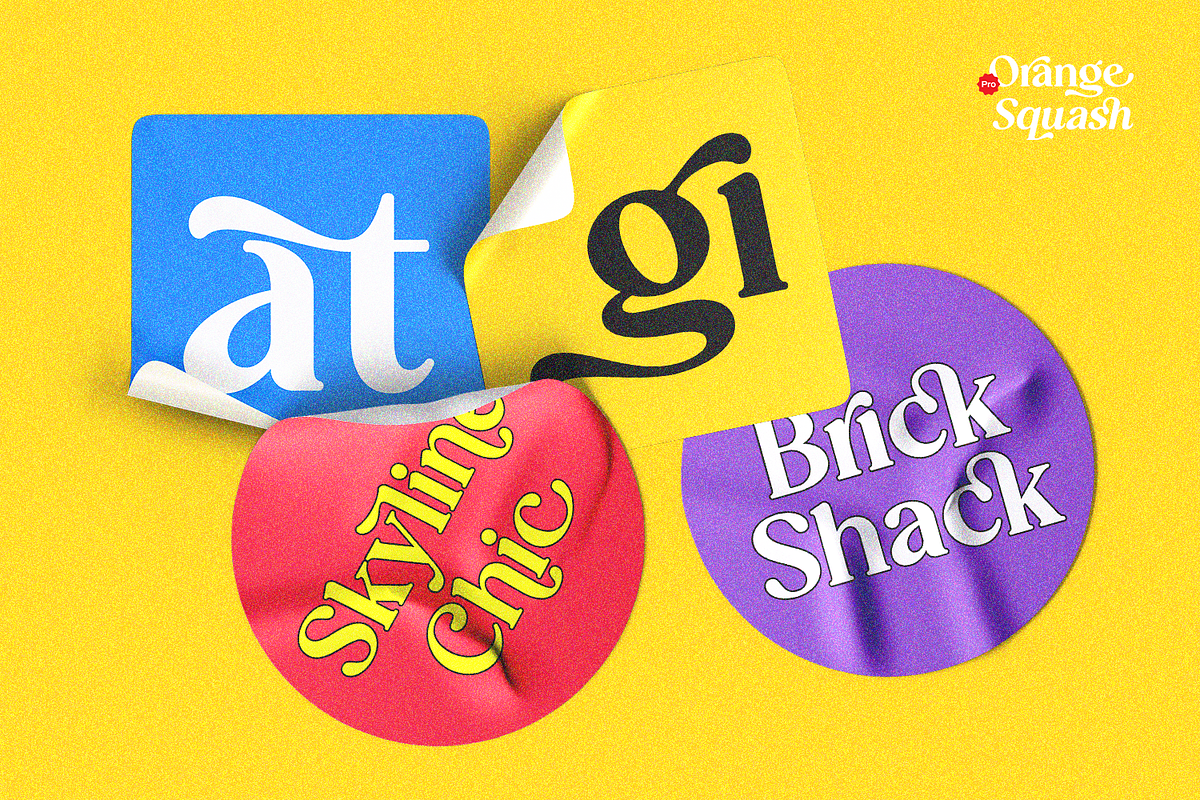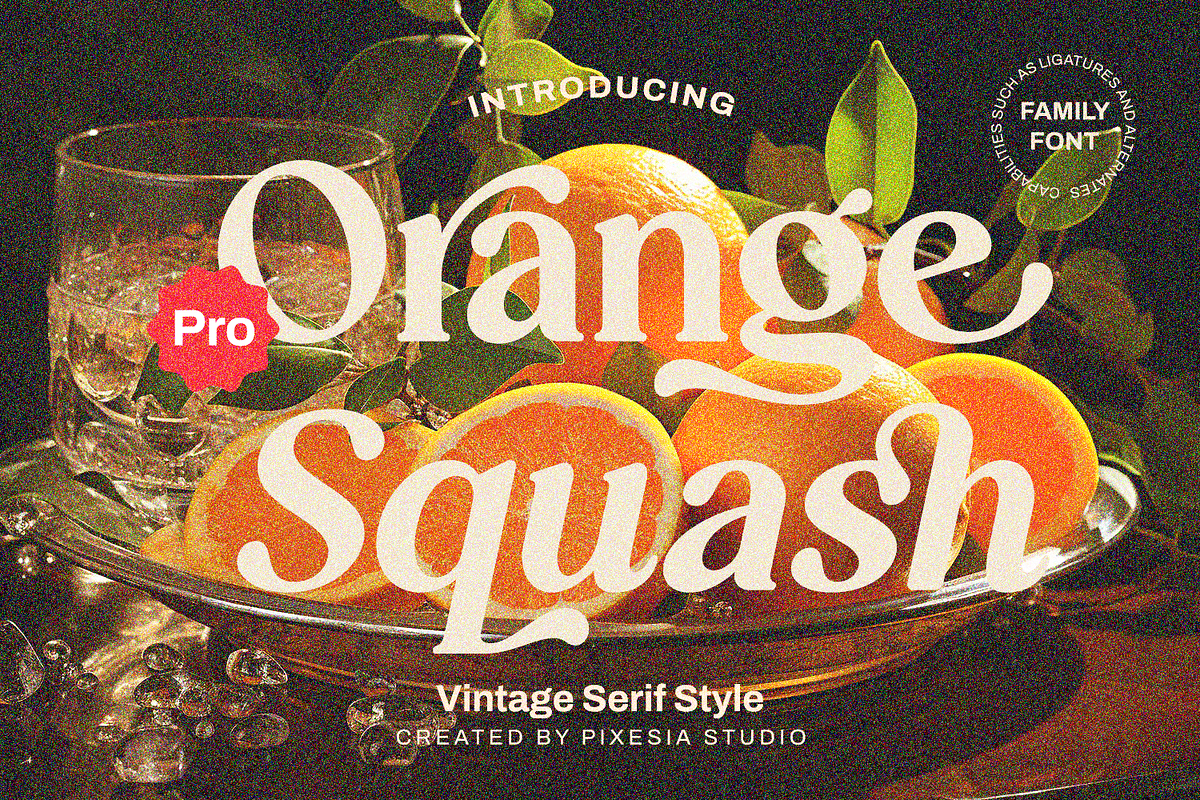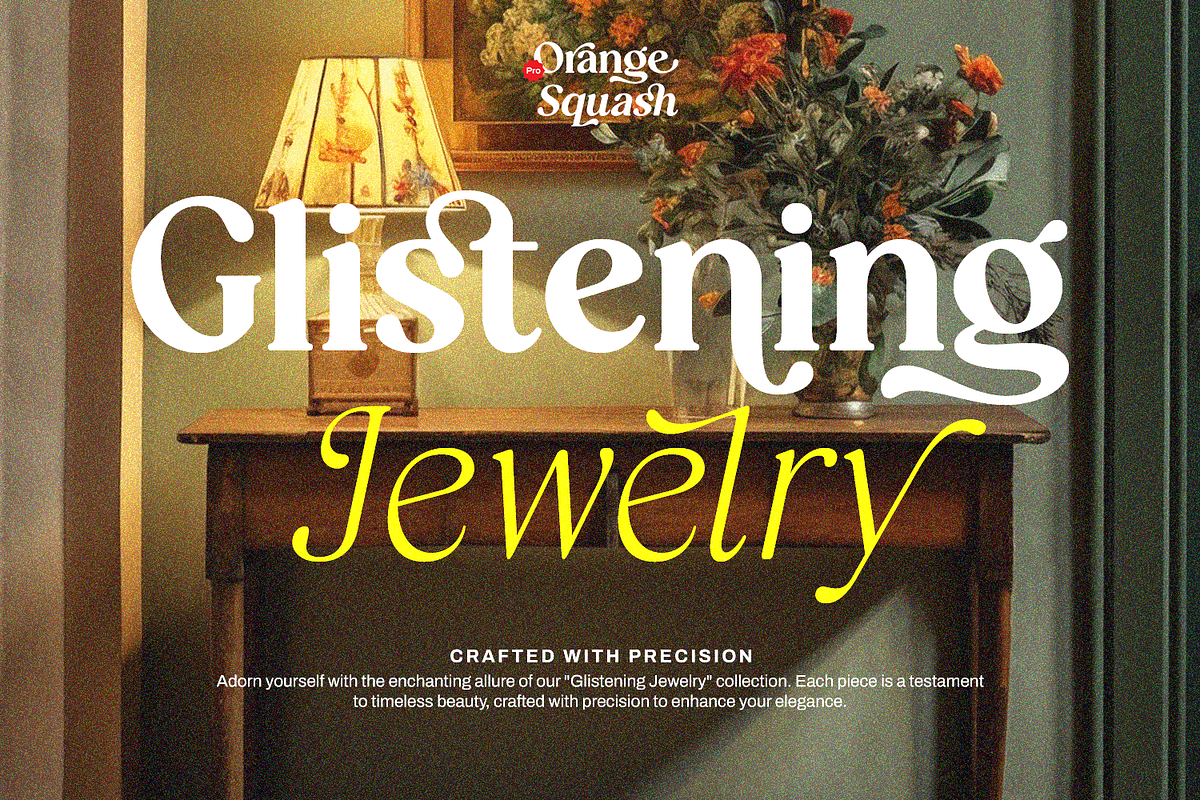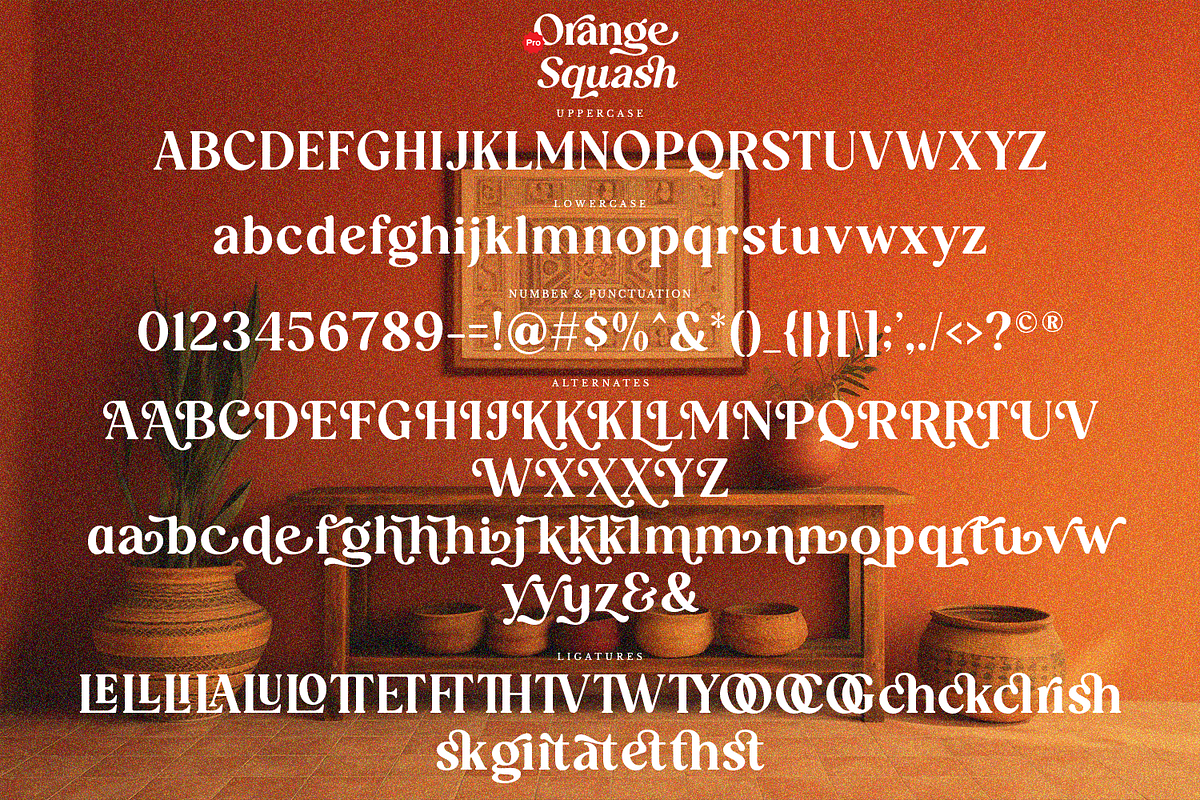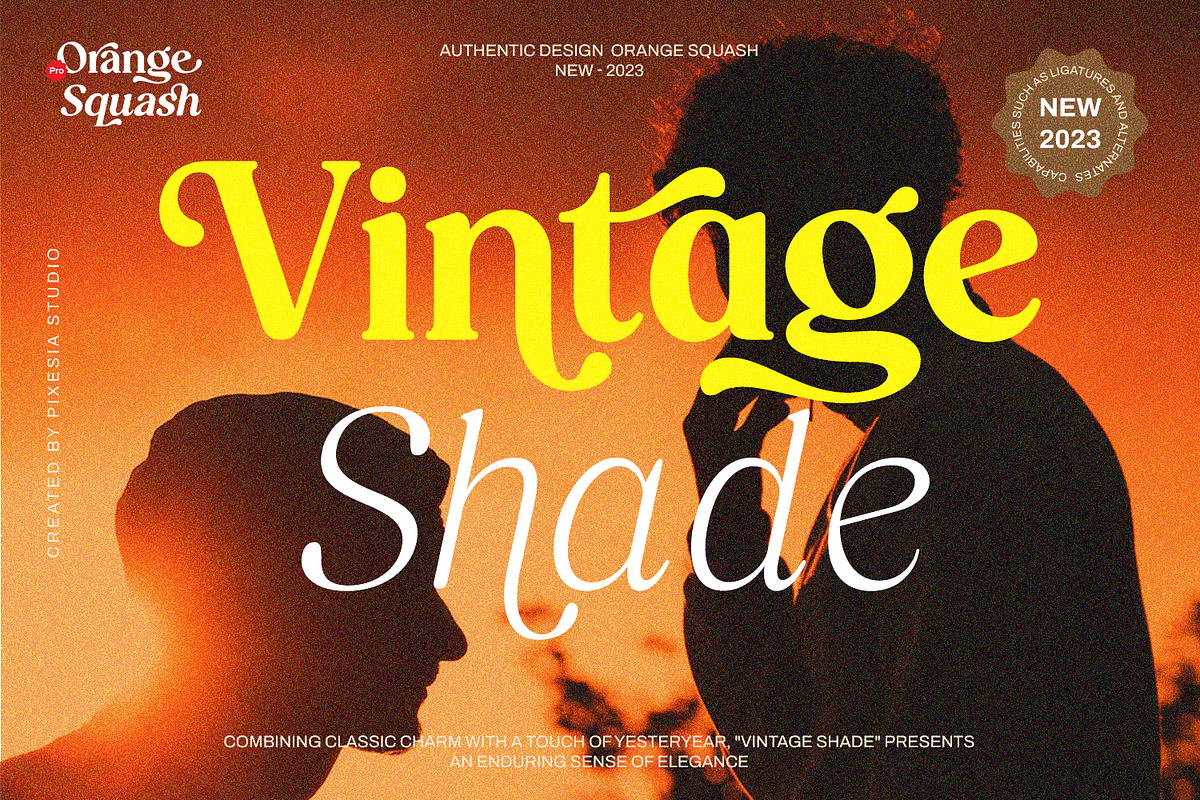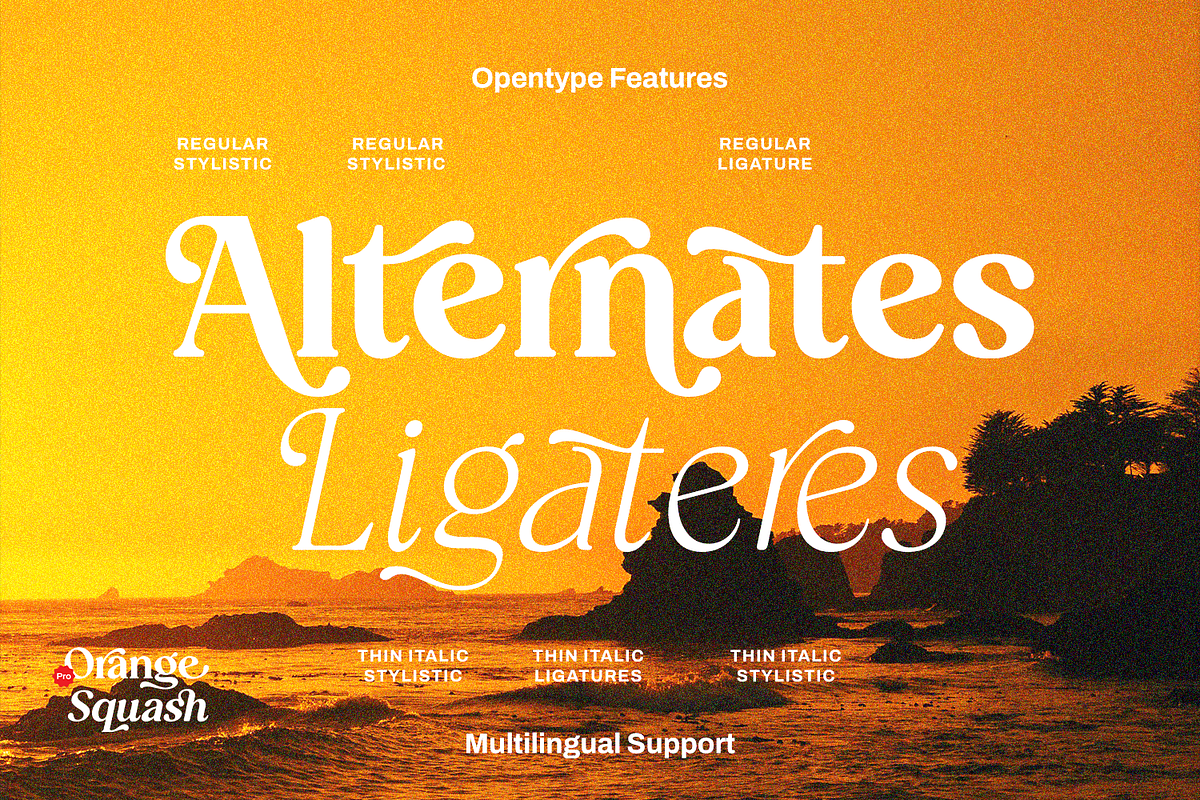
Orange Squash Pro - Vintage Serif
Introducing Orange Squash Pro - Modern Bold Vintage Serif Family Font
Orange Squash is a bold and playful vintage serif font that brings a touch of nostalgia to your designs. With its chunky serifs and playful curves, this font is perfect for creating eye-catching headlines, logos, and other design elements that demand attention. Its vintage aesthetic is versatile, making it a great choice for a wide range of projects, from packaging and advertising to editorial design and more. With its extensive character set and support for multiple languages, Orange Squash is a versatile font that will add a touch of personality to your designs. Get creative and have fun with Orange Squash today!
- 2 Weight and 4 style
- PUA Encoded Characters - Easily accessible without additional design software.
- Multilingual Support for 68 languages including Afrikaans, Albanian, Basque, Catalan, Danish, Dutch, English, Estonian, Faroese, Filipino, Finnish, French, Galician, German, Icelandic, Indonesian, Irish, Italian, Malay, Norwegian Bokmål, Portuguese, Spanish, Swahili, Swedish, Zulu